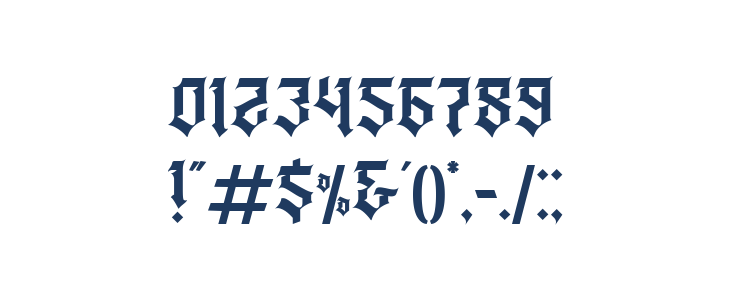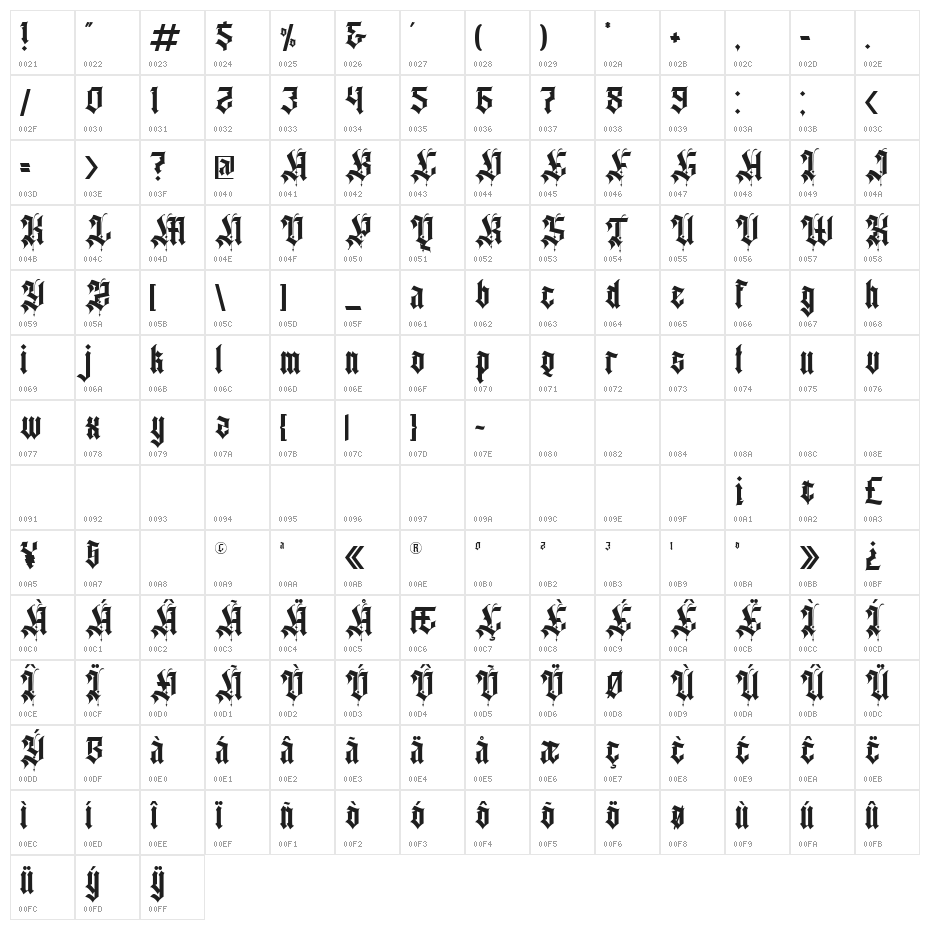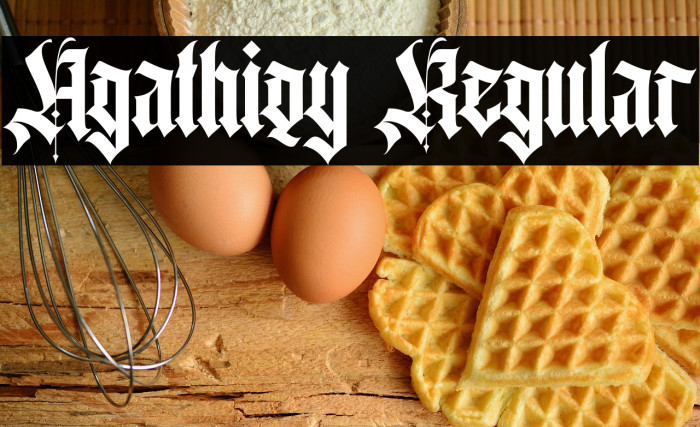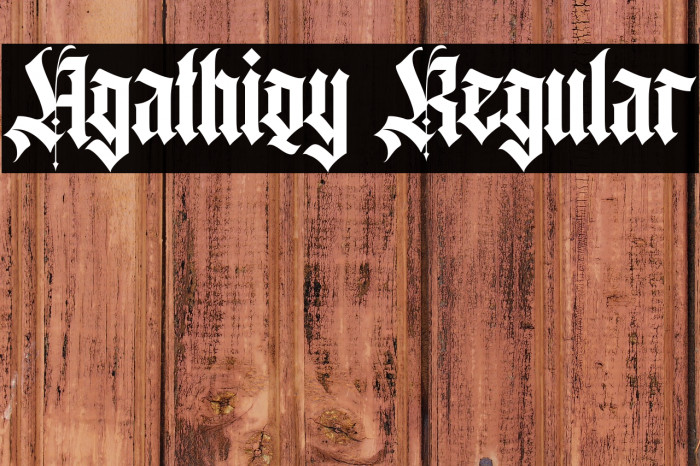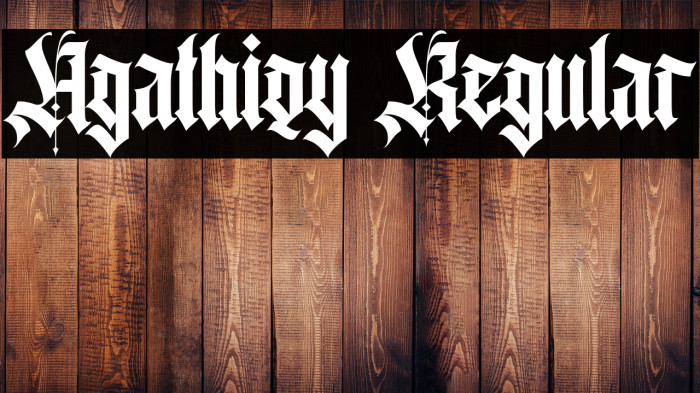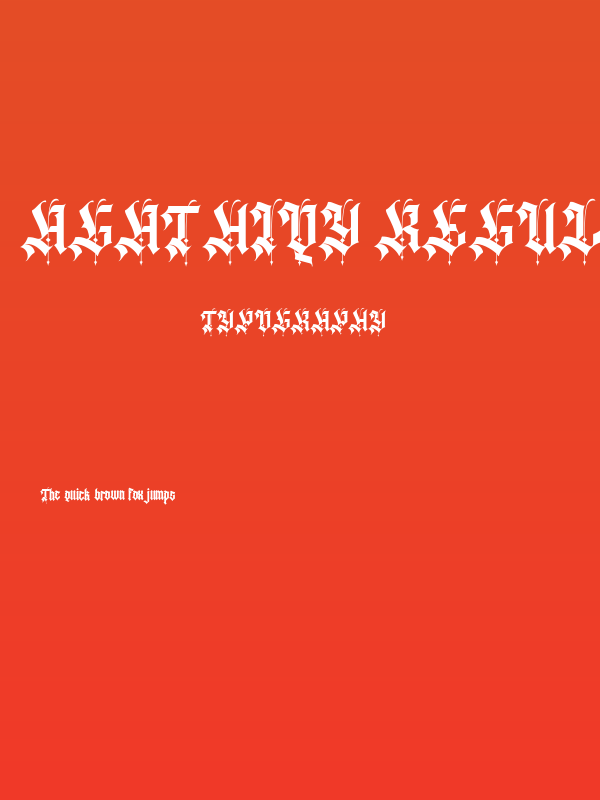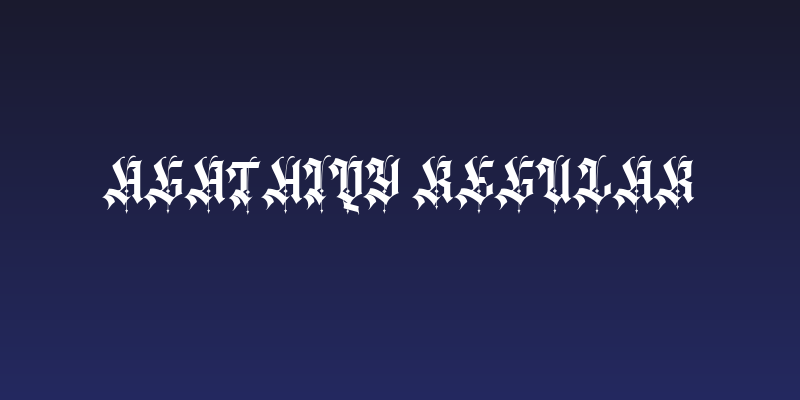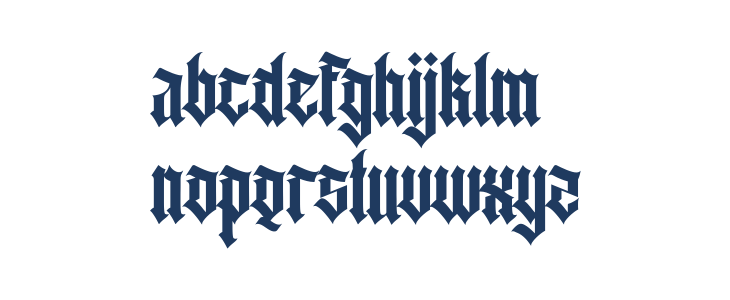
Agathiqy Regular Font
| Gesamtstil | Gothic, Decorative |
| Vorgeschlagene Projekte | Ideal for projects requiring a medieval or gothic theme, such as event posters, book covers, or branding for historical or fantasy-themed products. |